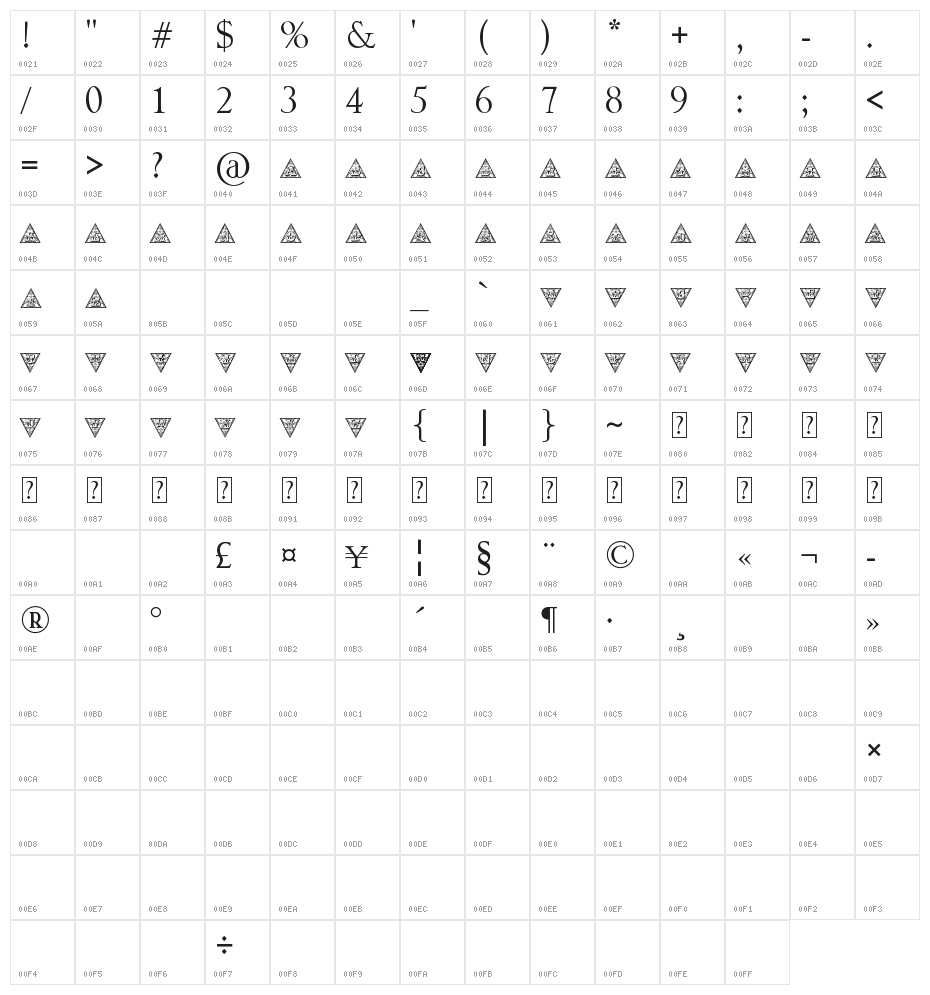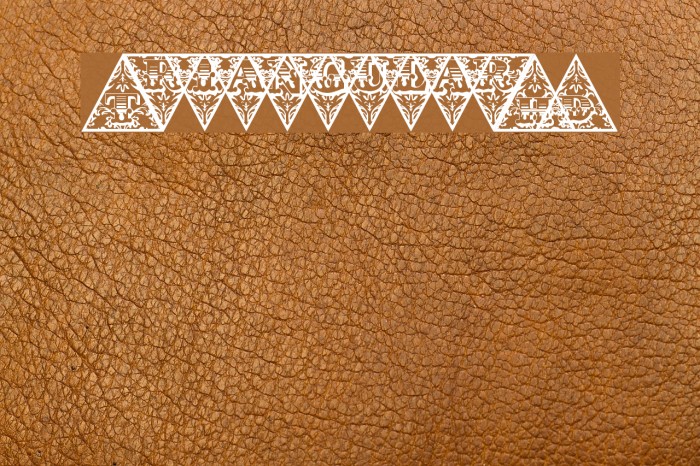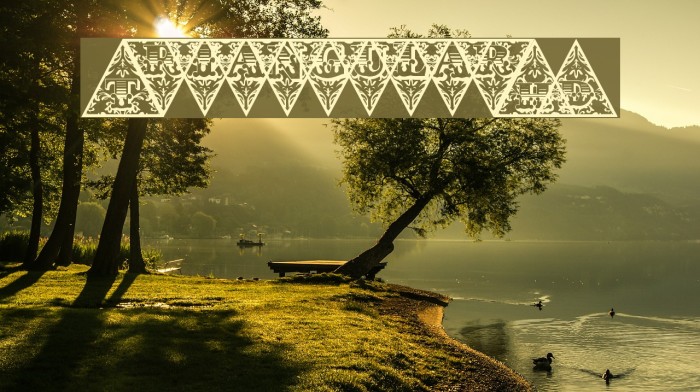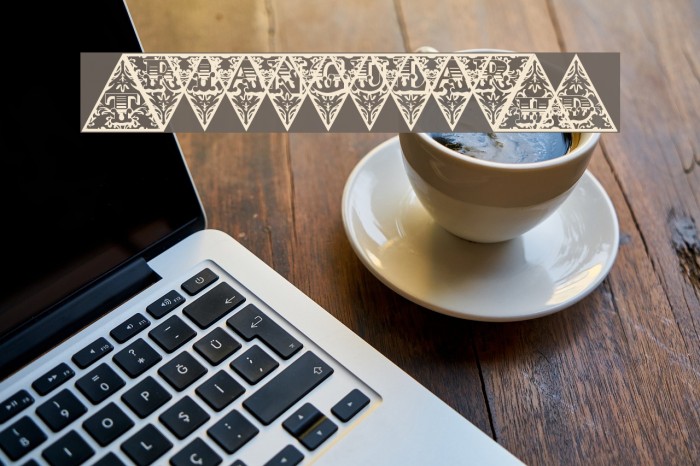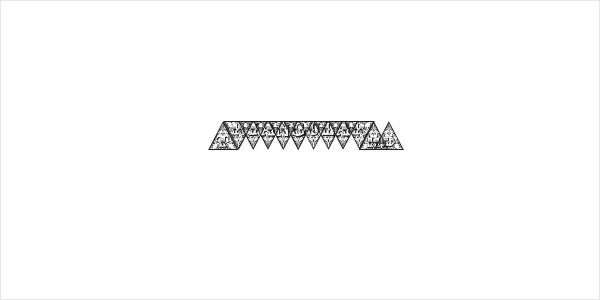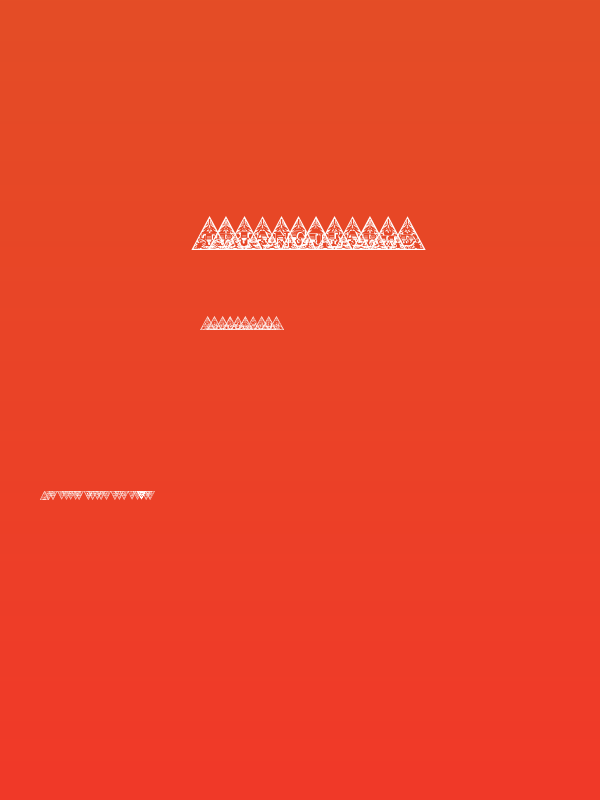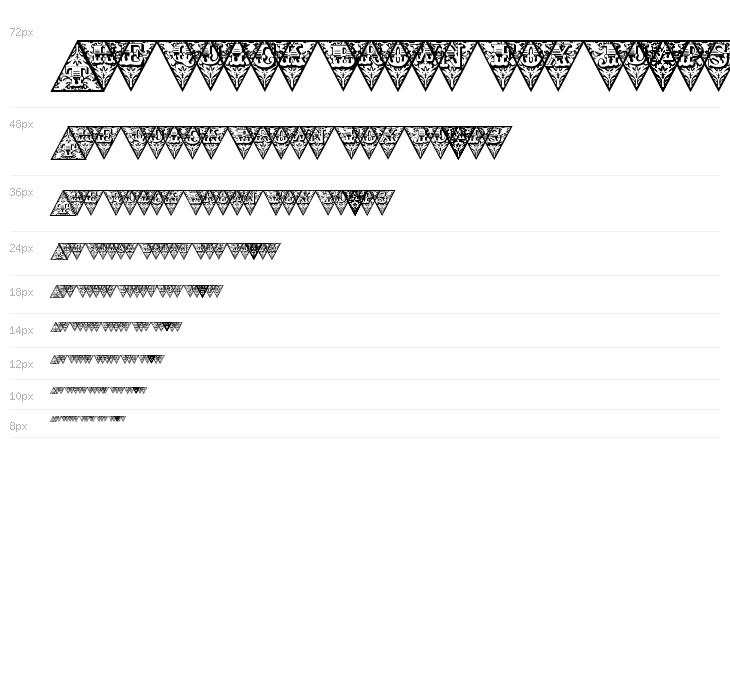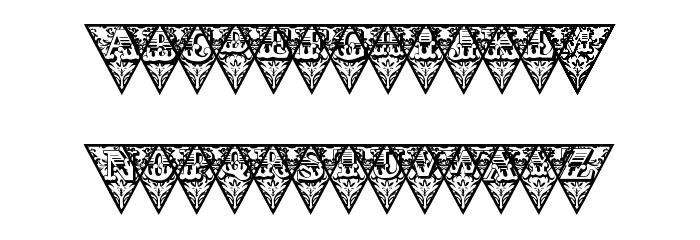
TriangularHD Font
TriangularHD Description
This decorative font features characters enclosed within intricate triangular designs, creating a unique and artistic appearance. The uppercase letters are bold and stylized, each set within a triangle that adds a layer of complexity and visual interest. The numbers and special characters are presented in a more traditional serif style, providing a striking contrast to the ornate letters. This font is ideal for projects that require a distinctive and eye-catching aesthetic, such as posters, album covers, or themed event invitations.
| Use Case | Headlines, Artistic displays |
| Proposed Projects | Ideal for posters, album covers, themed event invitations, and artistic displays. |